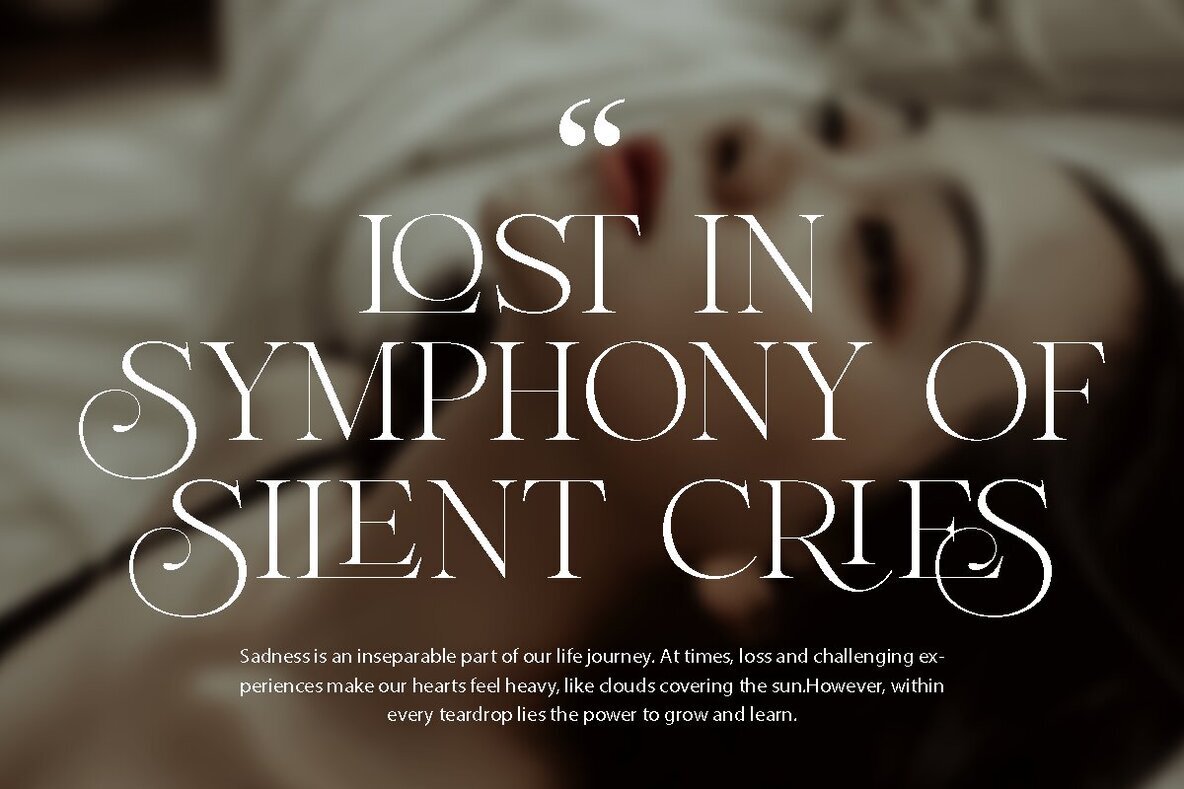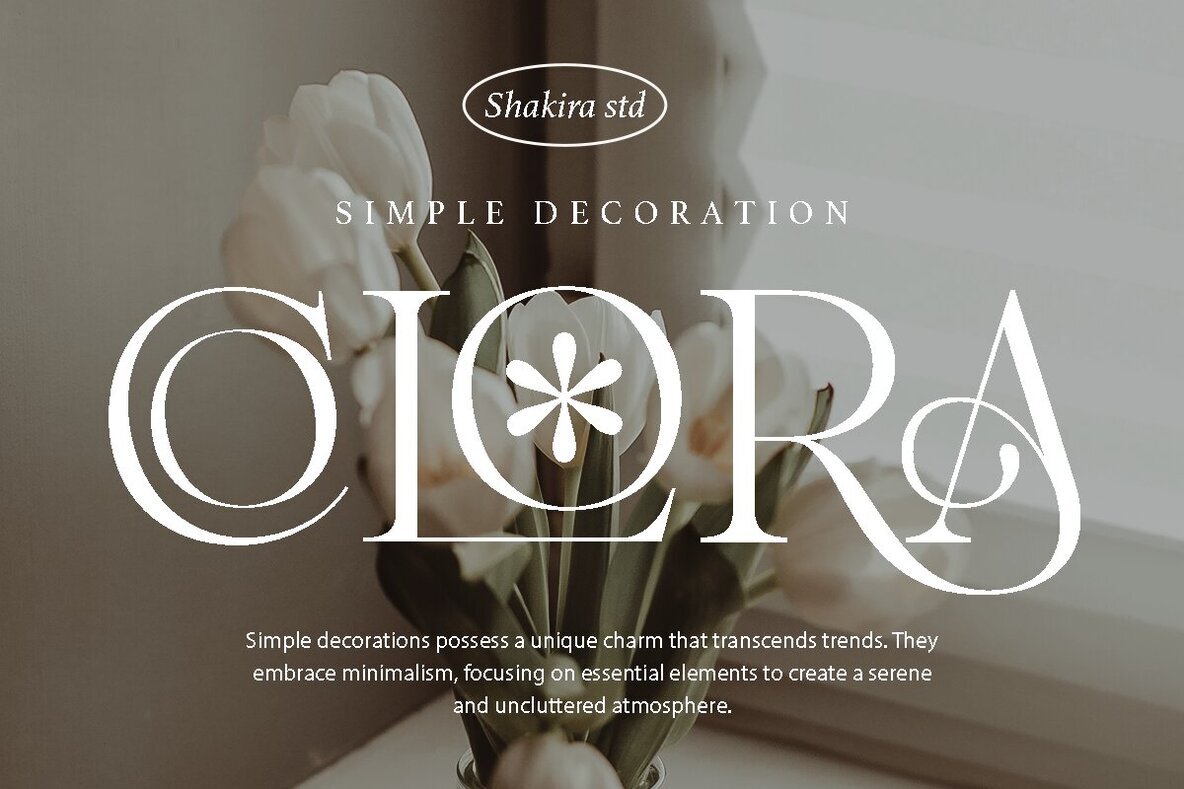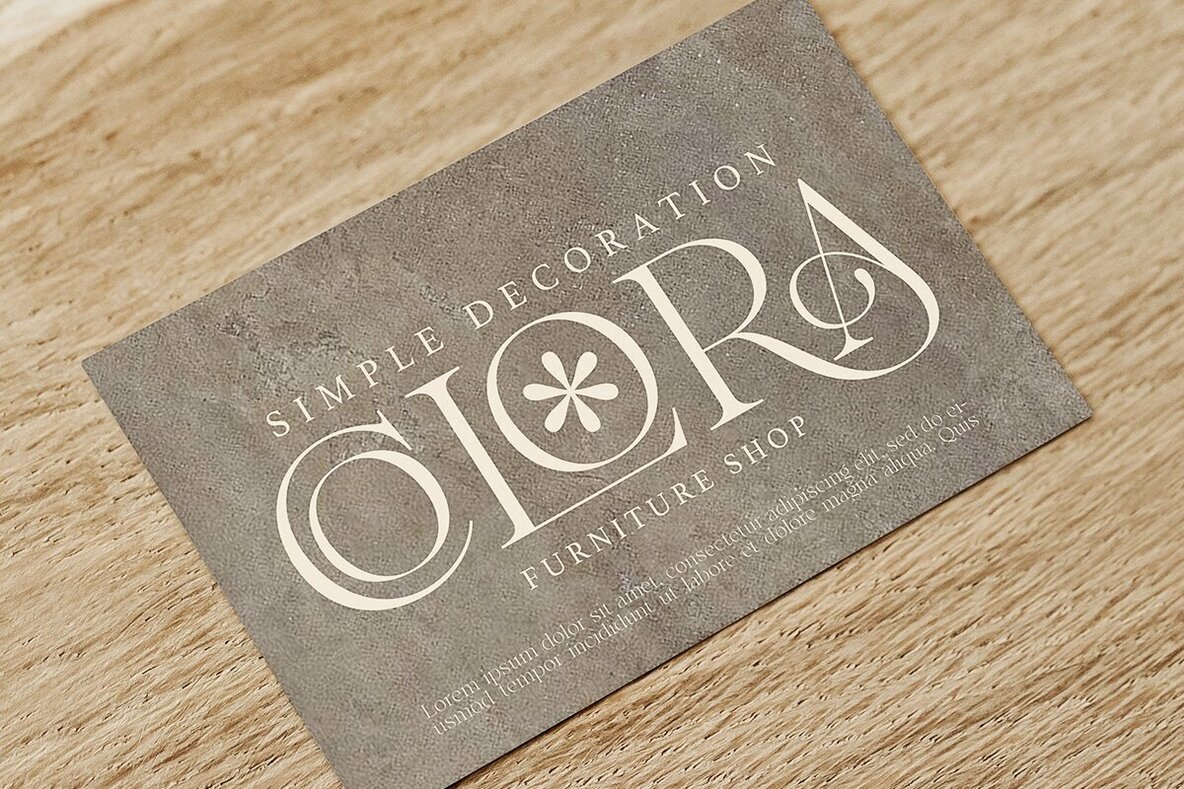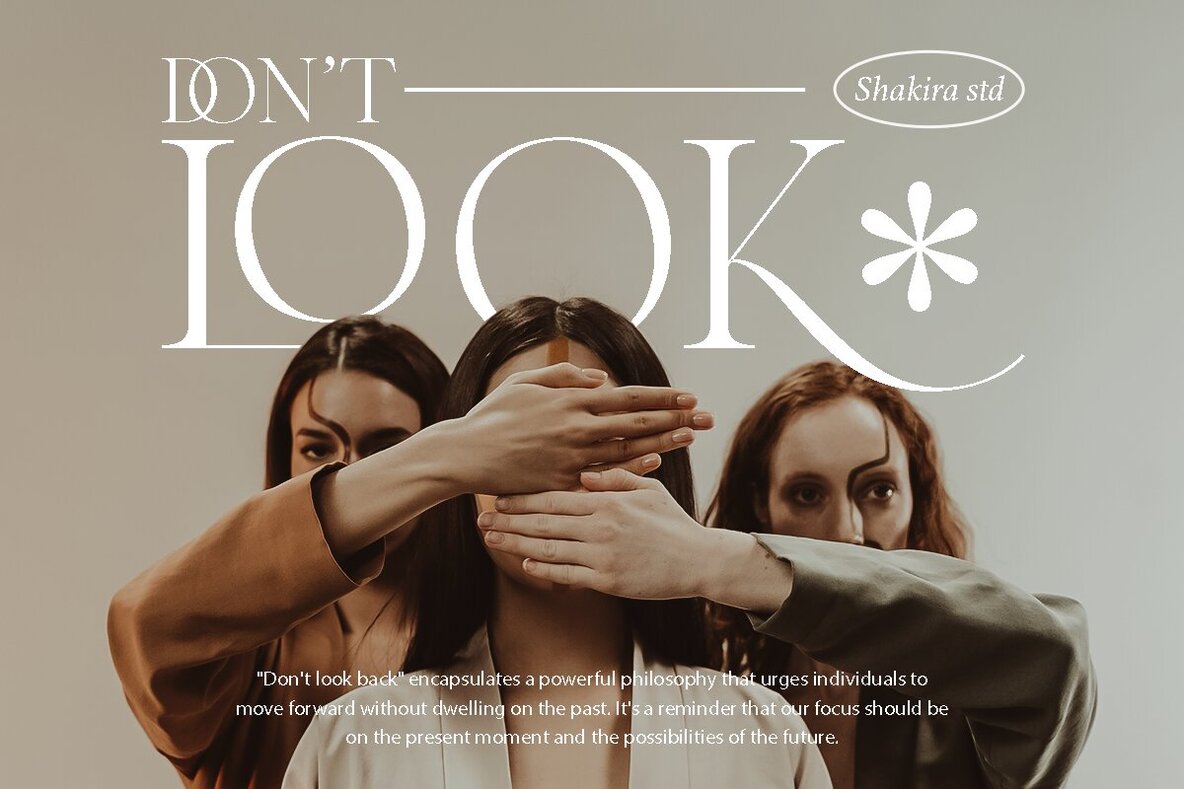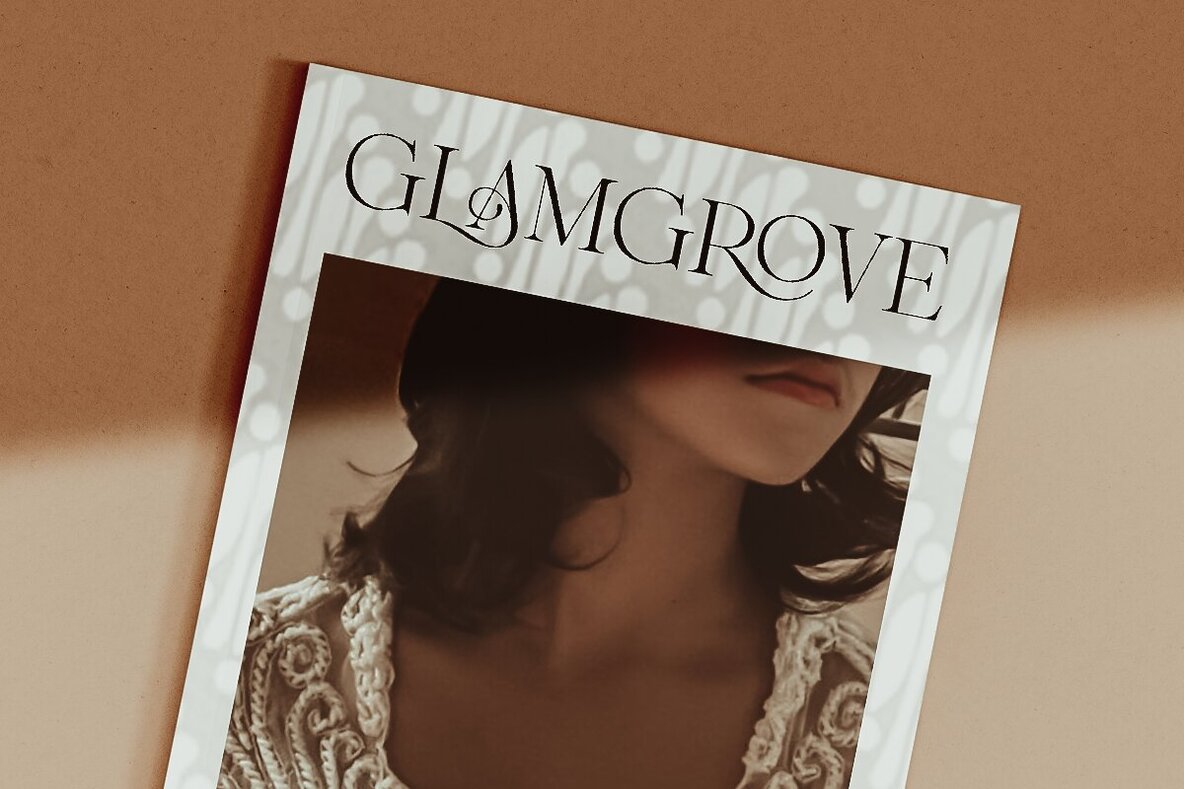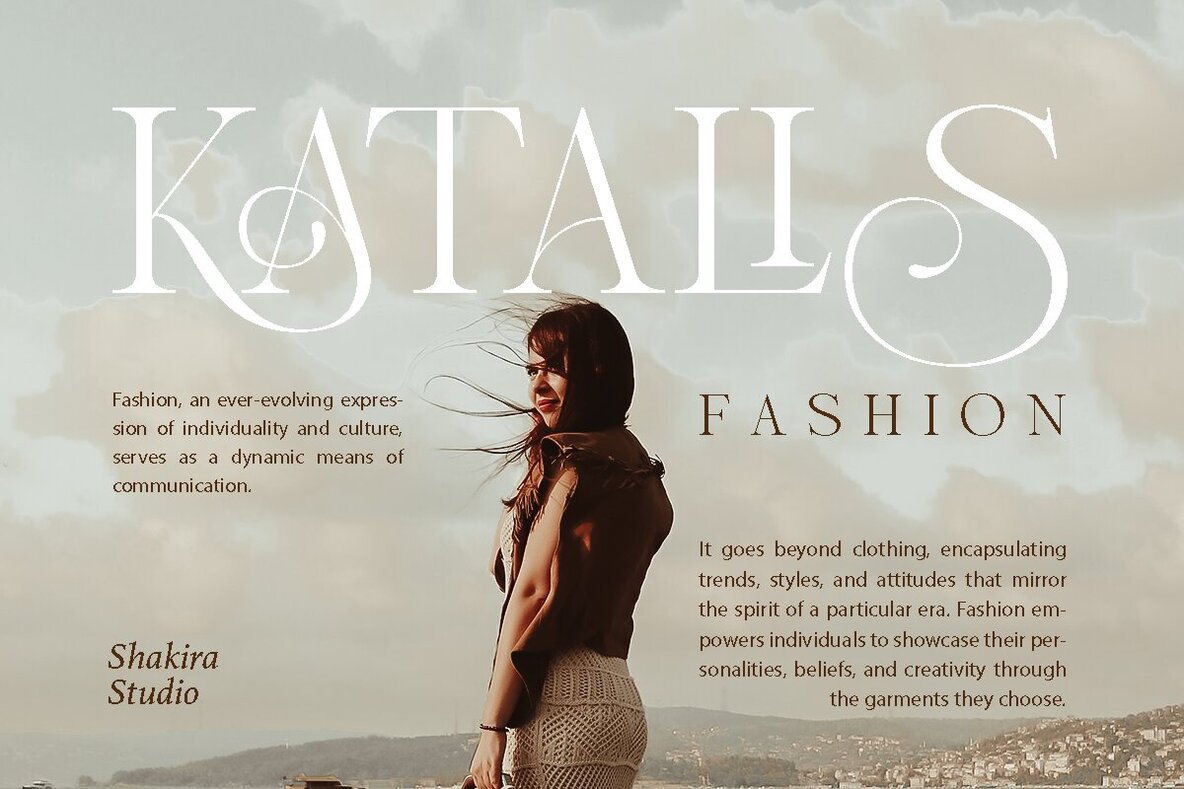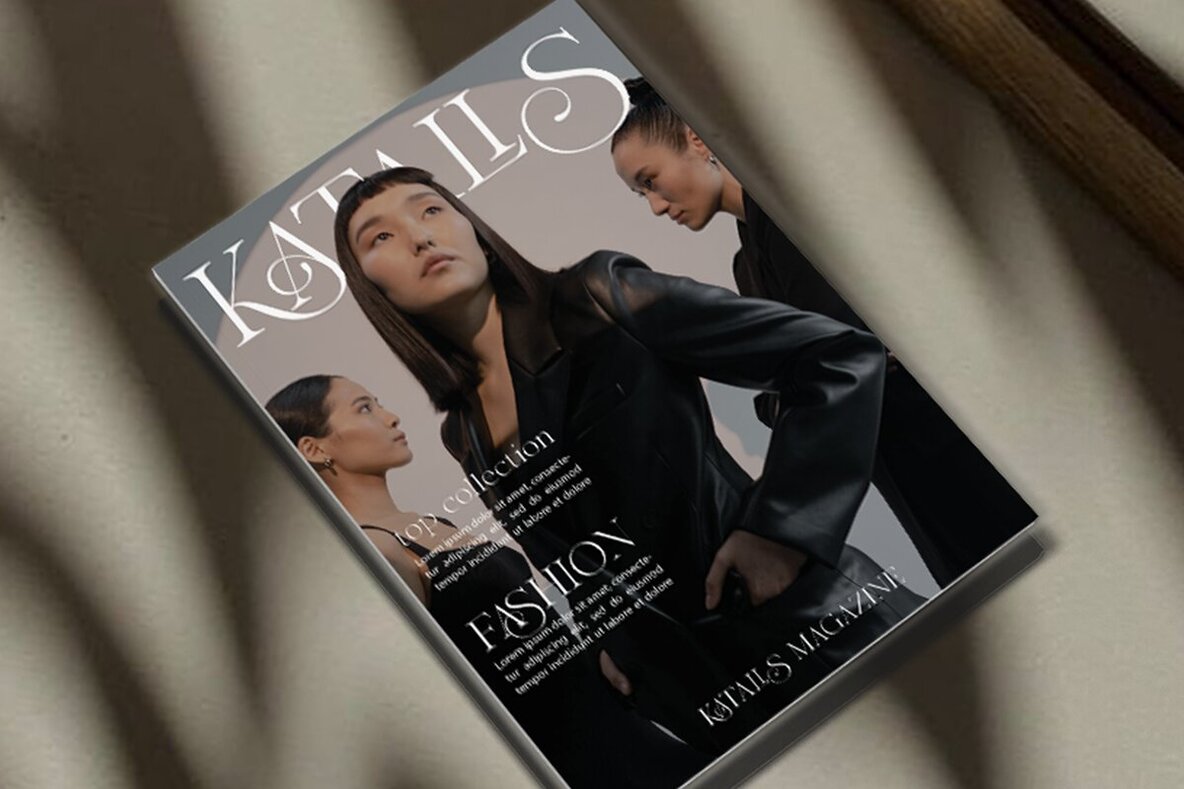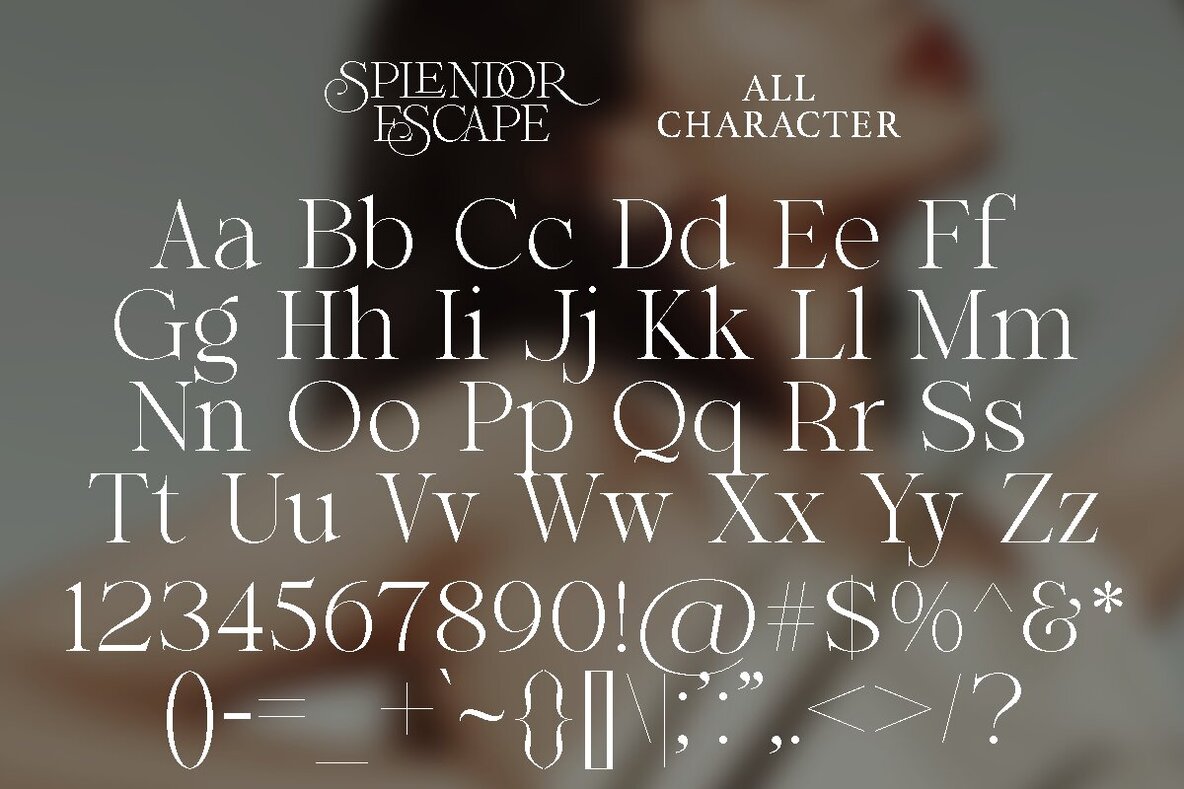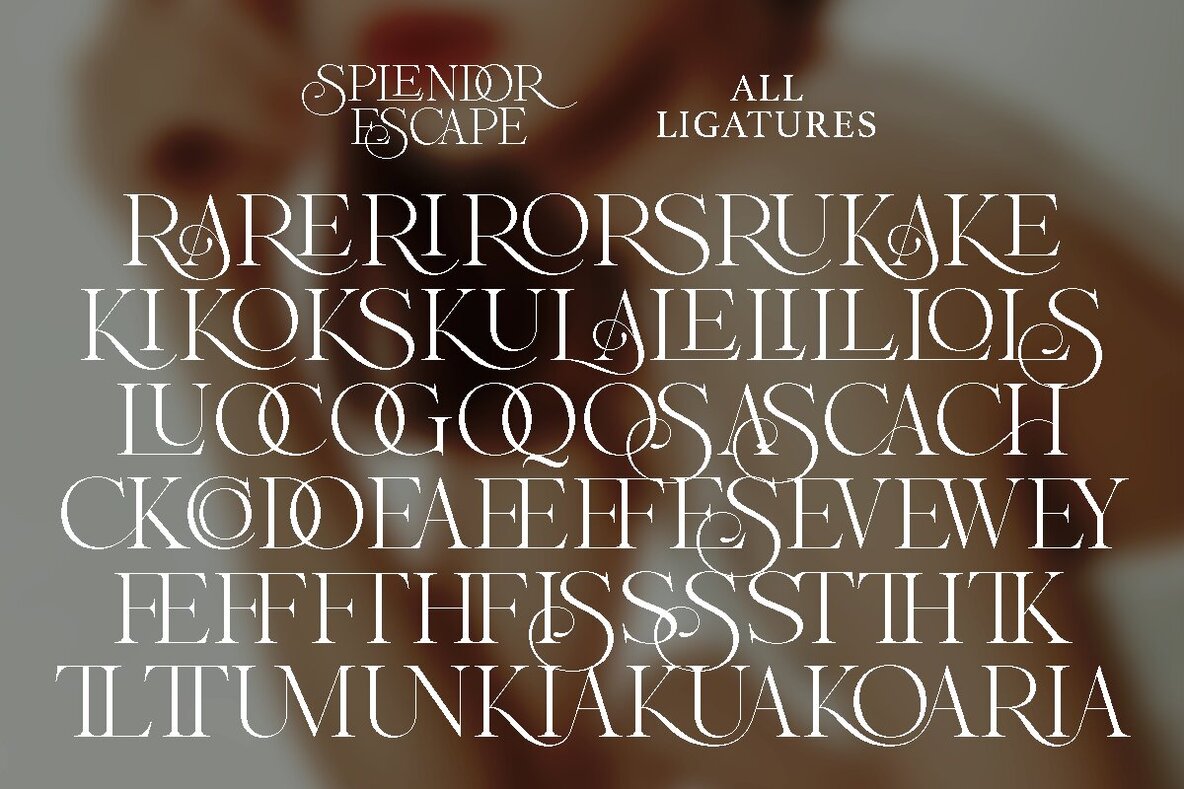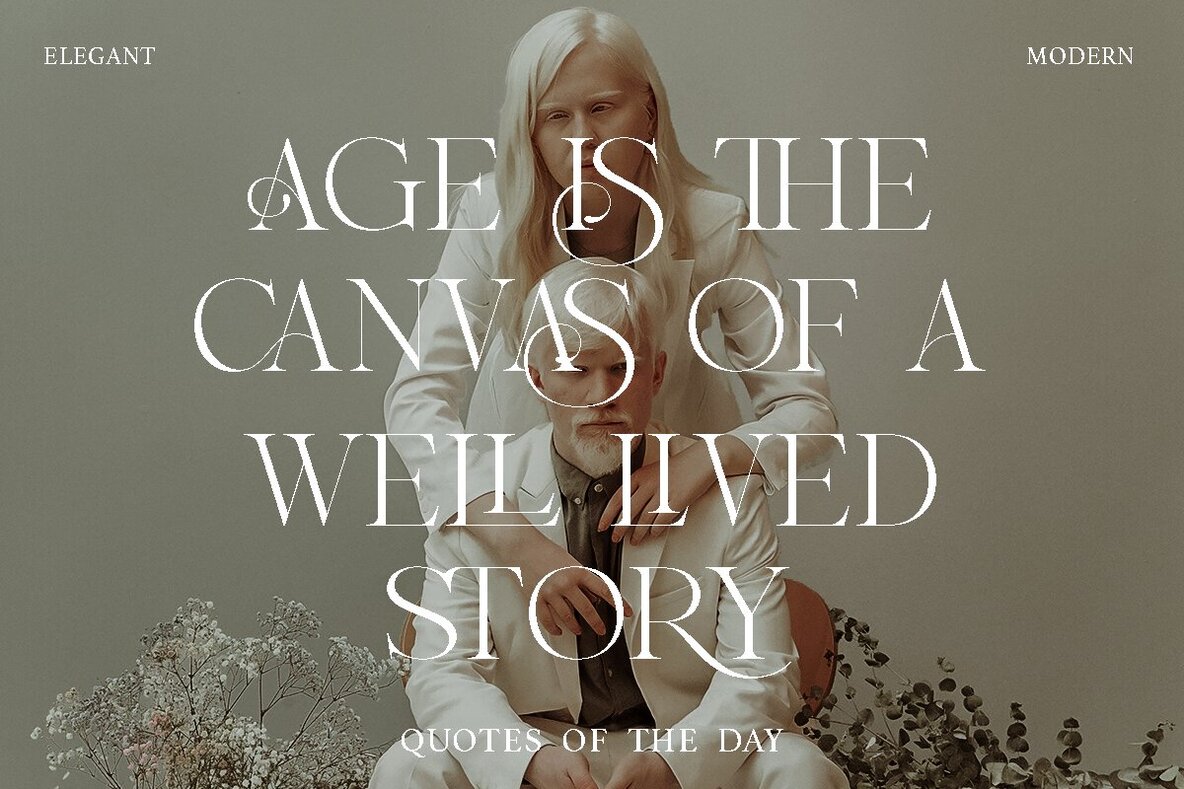
Splendor Escape Font
Splendor Escape Regular
Splendor Escape Italic
Splendor Escape embodies modern elegance in serif typography. This font isn't just a typeface; it is an invitation to explore sophistication and luxury. With its refined display, luxurious alternates, and ligatures, Splendor Escape sets a standard in serif fonts and typography trends. What truly sets Splendor Escape apart is its versatility. This font offers the freedom to express creativity across projects, from elegant logos to luxurious packaging. Splendor Escape supports a wide range of languages, including Afrikaans, Albanian, Catalan, Croatian, Czech, Danish, Dutch, English, Estonian, Finnish, French, German, Hungarian, Icelandic, Italian, Lithuanian, Maltese, Norwegian, Polish, Portuguese, Slovenian, Spanish, Swedish, Turkish, and Zulu. Keep your designs ahead of the trend towards timeless sophistication with Splendor Escape, and infuse your projects with its exquisite features.Splendor Escape: A Modern Serif with Luxurious Elegance